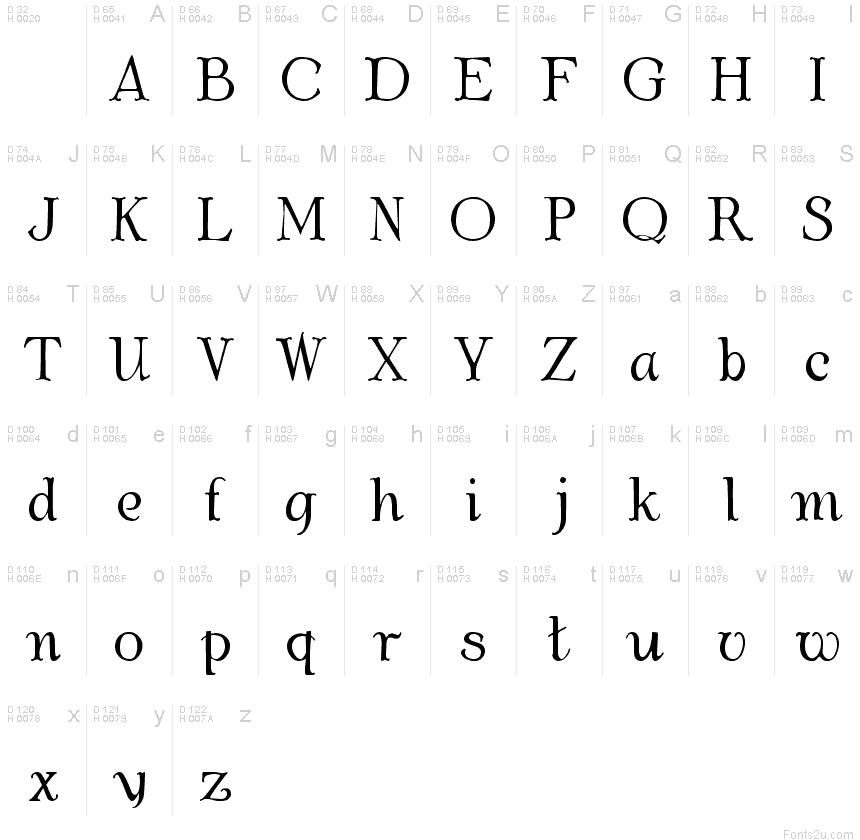
Albemarle Demo
Albemarle font by David F. Nalle of Scriptorium fonts is a free retro display typeface with the relaxed charm of ink brushed onto textured paper. Its softly uneven strokes, curling terminals, and gently swelling lines give it a hand-done, storybook feel that still reads clearly at a glance. There’s a quiet drama in the way letters lean and ripple together, creating a distinctive rhythm that feels both historic and slightly mischievous.
Using Albemarle, your titles feel like they’ve stepped out of an old printshop window or a battered fairy-tale cover. This free font shines on book covers, posters, wine labels, boutique logos, menus, and invitations where you want warmth and a touch of Old World romance. Pair it with a clean geometric sans in small text to keep layouts readable while letting Albemarle carry the personality in larger sizes.